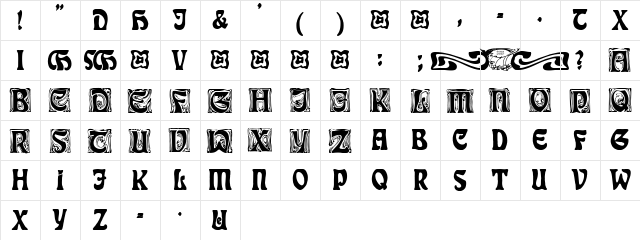
Rudelsberg-Initialen Regular
| Designer | Dieter Steffmann |
Design Context for Rudelsberg-Initialen Typeface
Rudelsberg-Initialen is a composed and adaptable typeface that performs quietly and consistently across a wide range of design contexts.